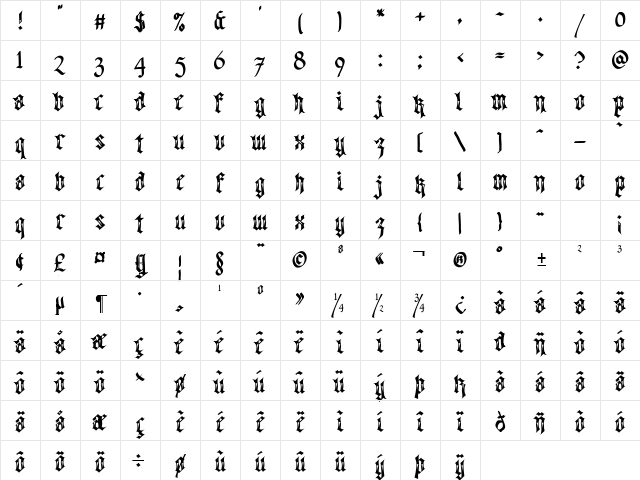
Walk Da Walk Two Regular Free Font
Walk Da Walk Two Regular
Foundry: M￿ Greb￿
Designer: M￿ Greb￿
Year: 2011
Design Context for Walk Da Walk Two
Walk Da Walk Two is a composed and adaptable typeface that performs quietly and consistently across a wide range of design contexts.